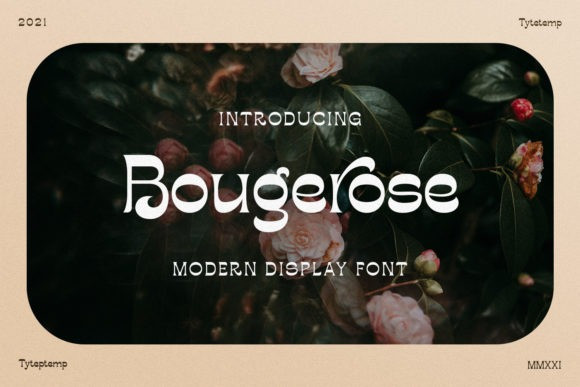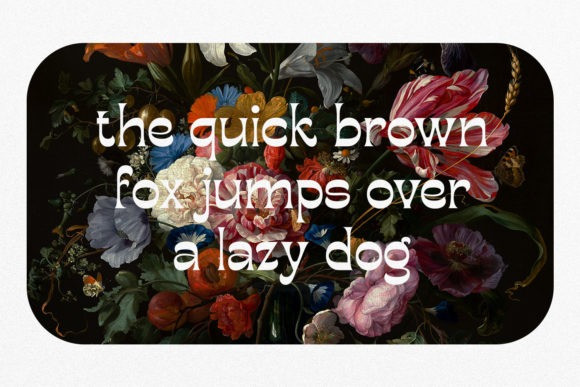
Bougerose Font
Bougerose is a beautiful and modern display font perfect for editorial projects, logo design, clothing branding, product packaging, magazine headers, or simply as a stylish text overlay to any background image. Add it to any of your creative projects, and notice how it makes them exquisite and outstanding!